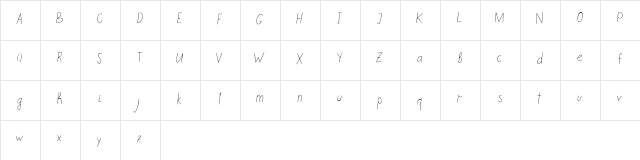
Embarla Firgasto Handwritten Regular
Design Context for Embarla Firgasto Handwritten Typeface
Embarla Firgasto Handwritten flows with the natural rhythm of handwritten lettering, making it ideal for designs that call for warmth and personal expression.